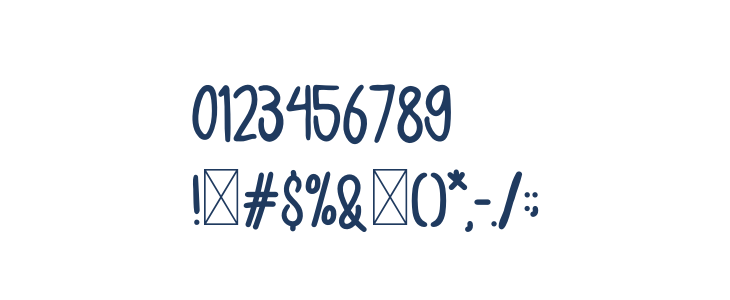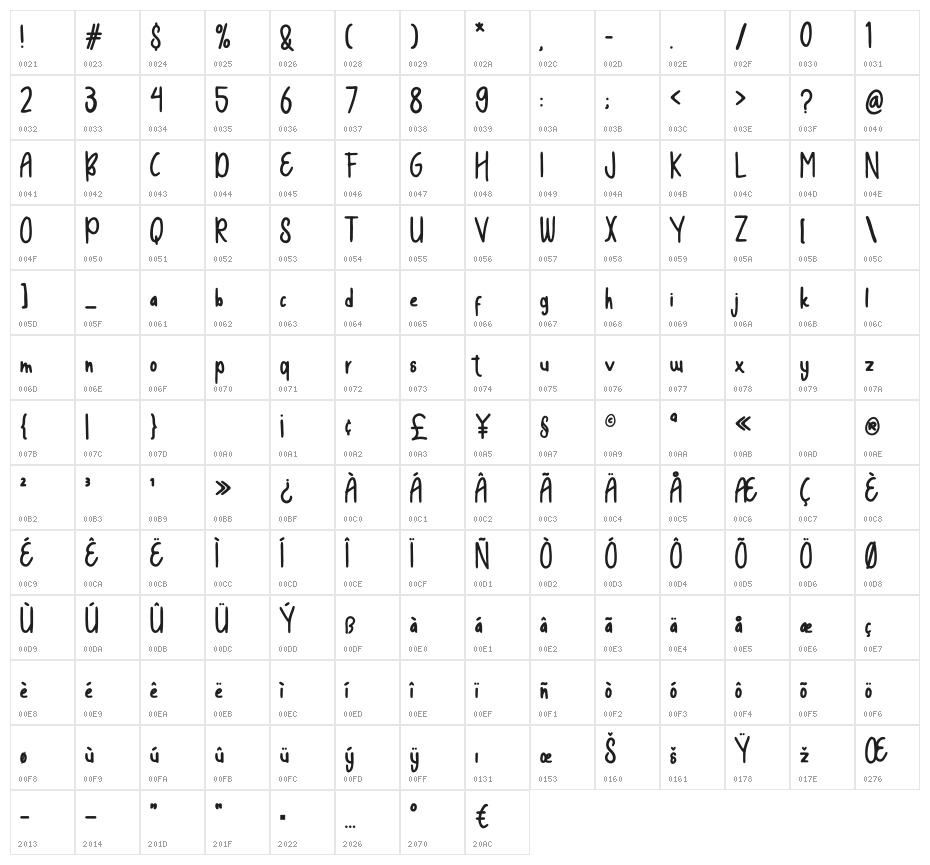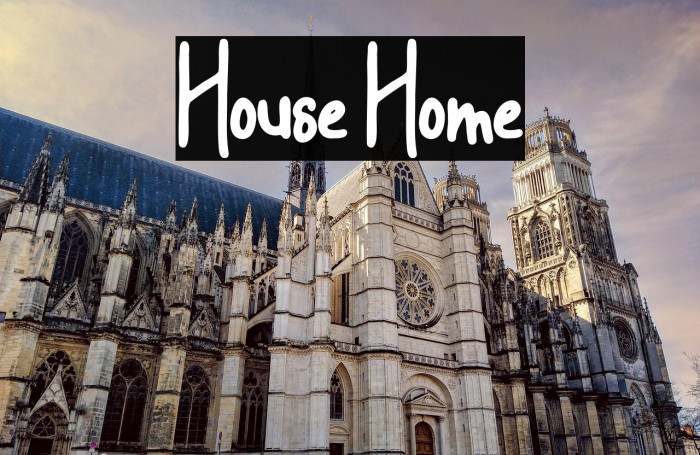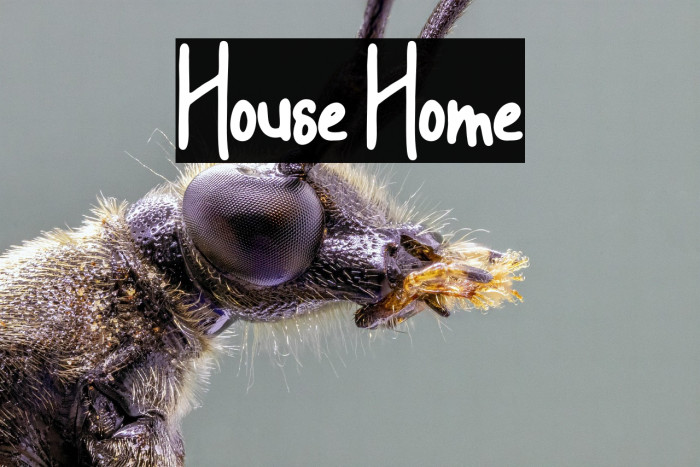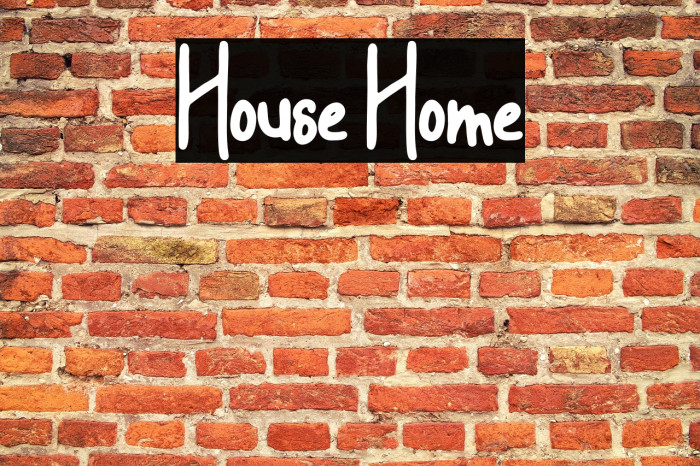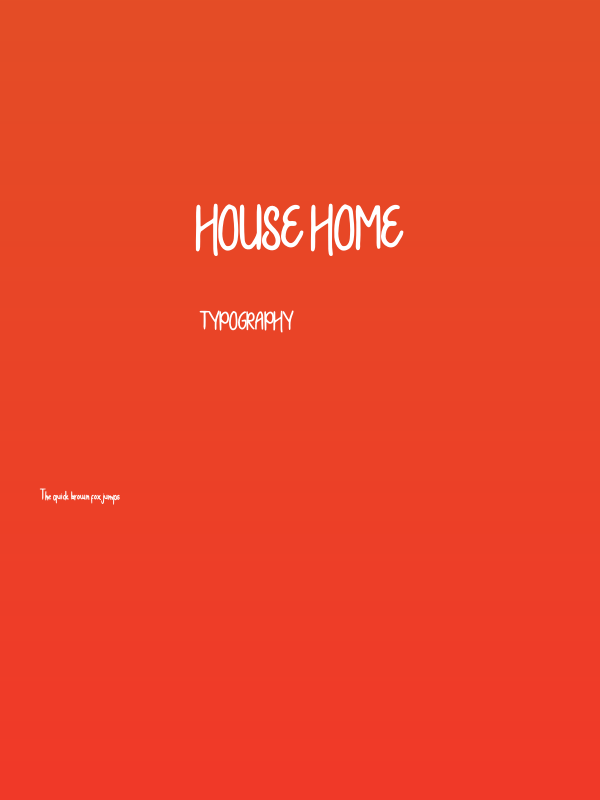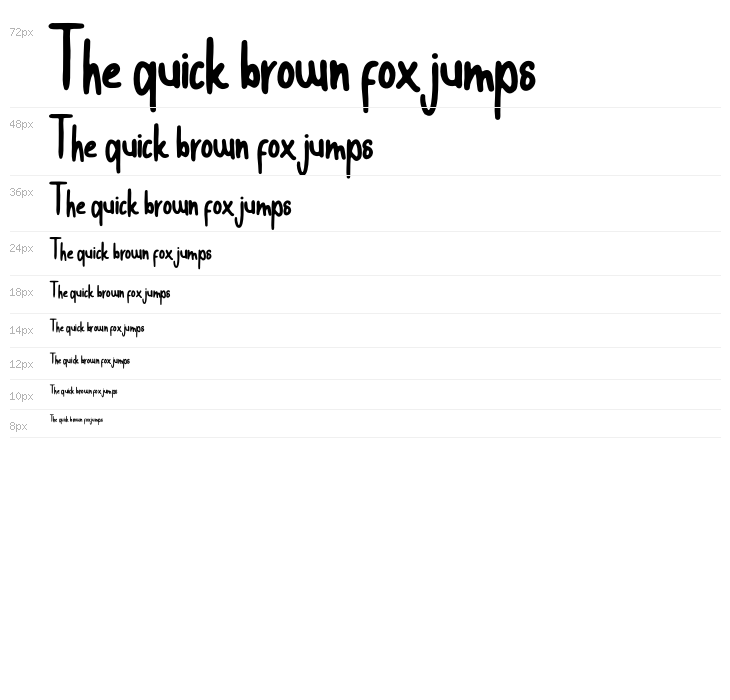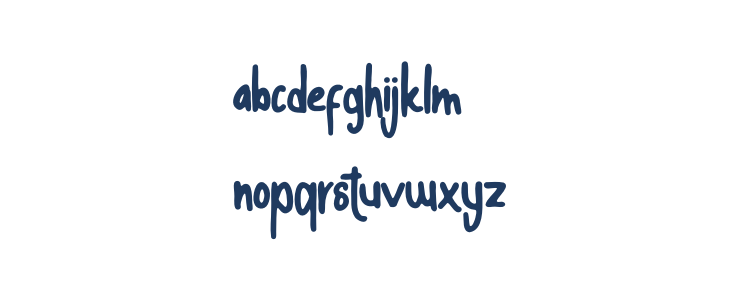
House Home Font
House Home Description
This font features a playful and casual handwritten style, characterized by its rounded and slightly irregular letterforms. The uppercase letters are bold and prominent, while the lowercase letters maintain a consistent flow, adding to the font's approachable and friendly appearance. The numerals are clear and easy to read, matching the overall style of the alphabet. Special characters are included, maintaining the same whimsical aesthetic. This font is suitable for projects that require a personal touch, such as invitations, greeting cards, or branding for creative businesses.
| Overall Style | Casual, Playful |
| Use Case | Headlines, Logos, Invitations |
| Proposed Projects | Ideal for invitations, greeting cards, personal branding, and creative projects. |